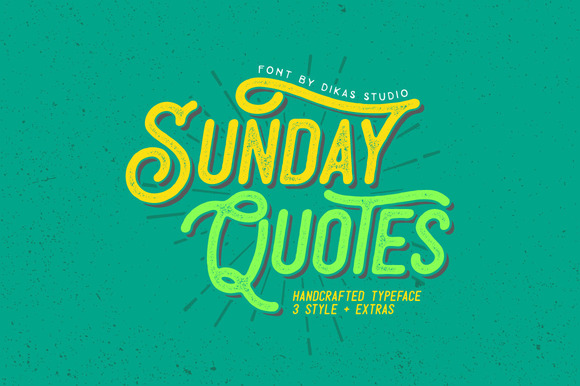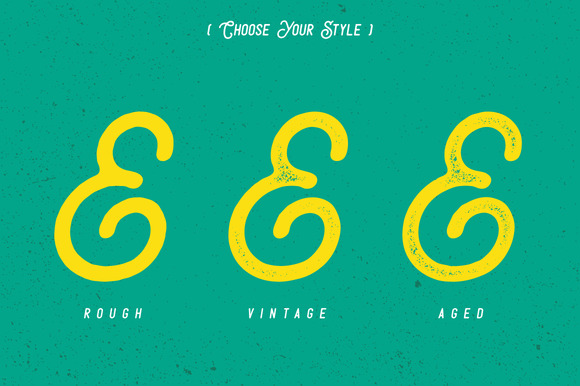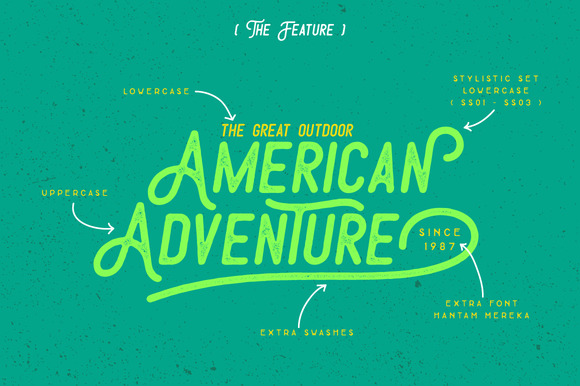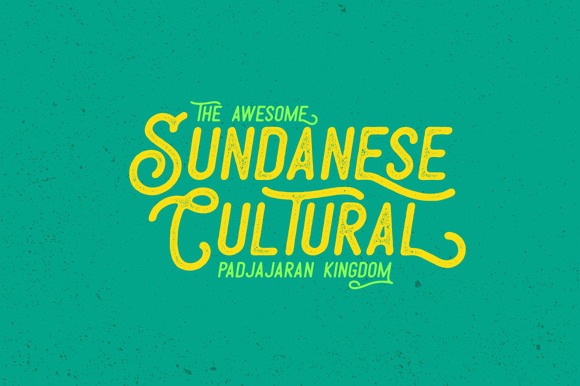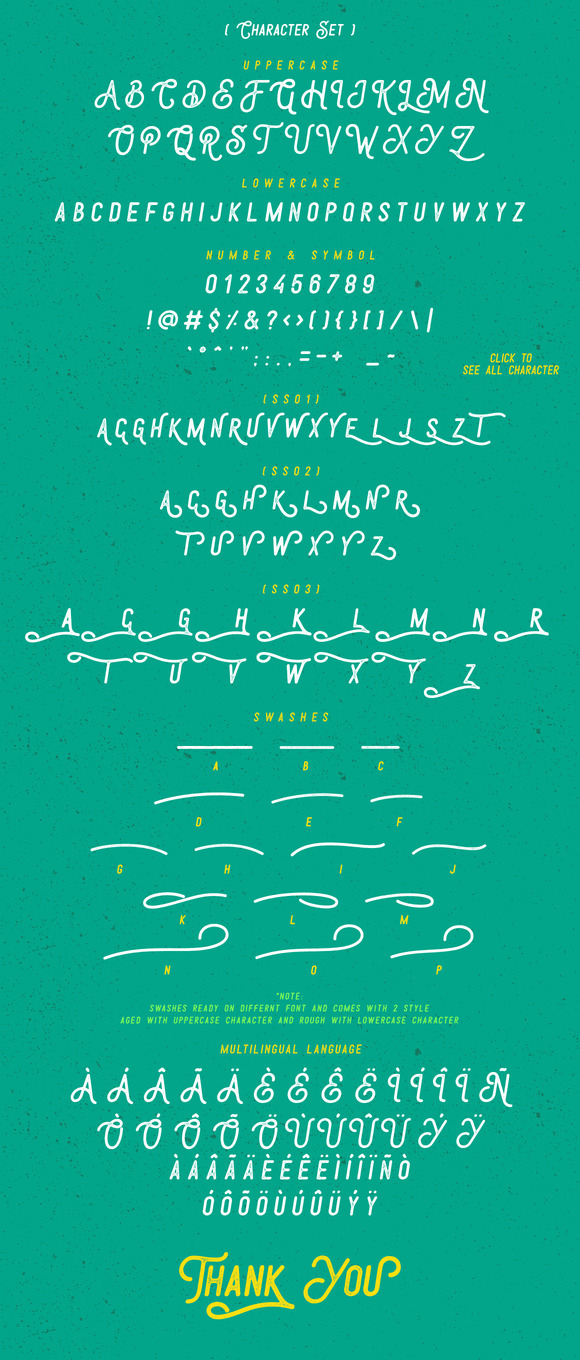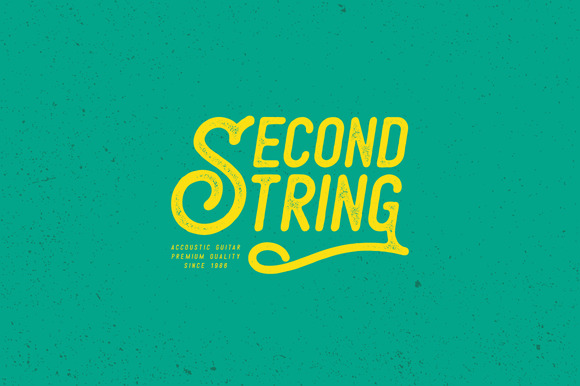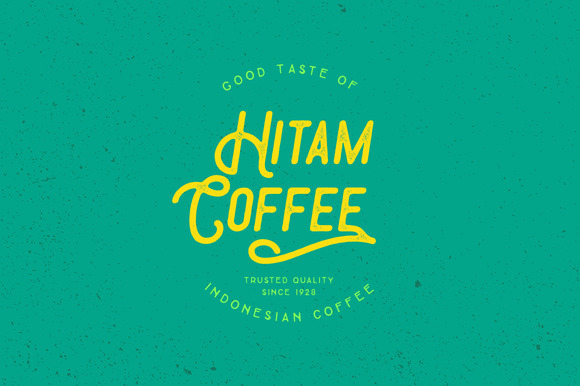
Sunday Quotes Font
About Sunday Quotes Font
Sunday Quotes is a set of 3 friendly handwritten fonts.
Sunday Quotes Regular
Sunday Quotes Swash
Sunday Quotes Vintage